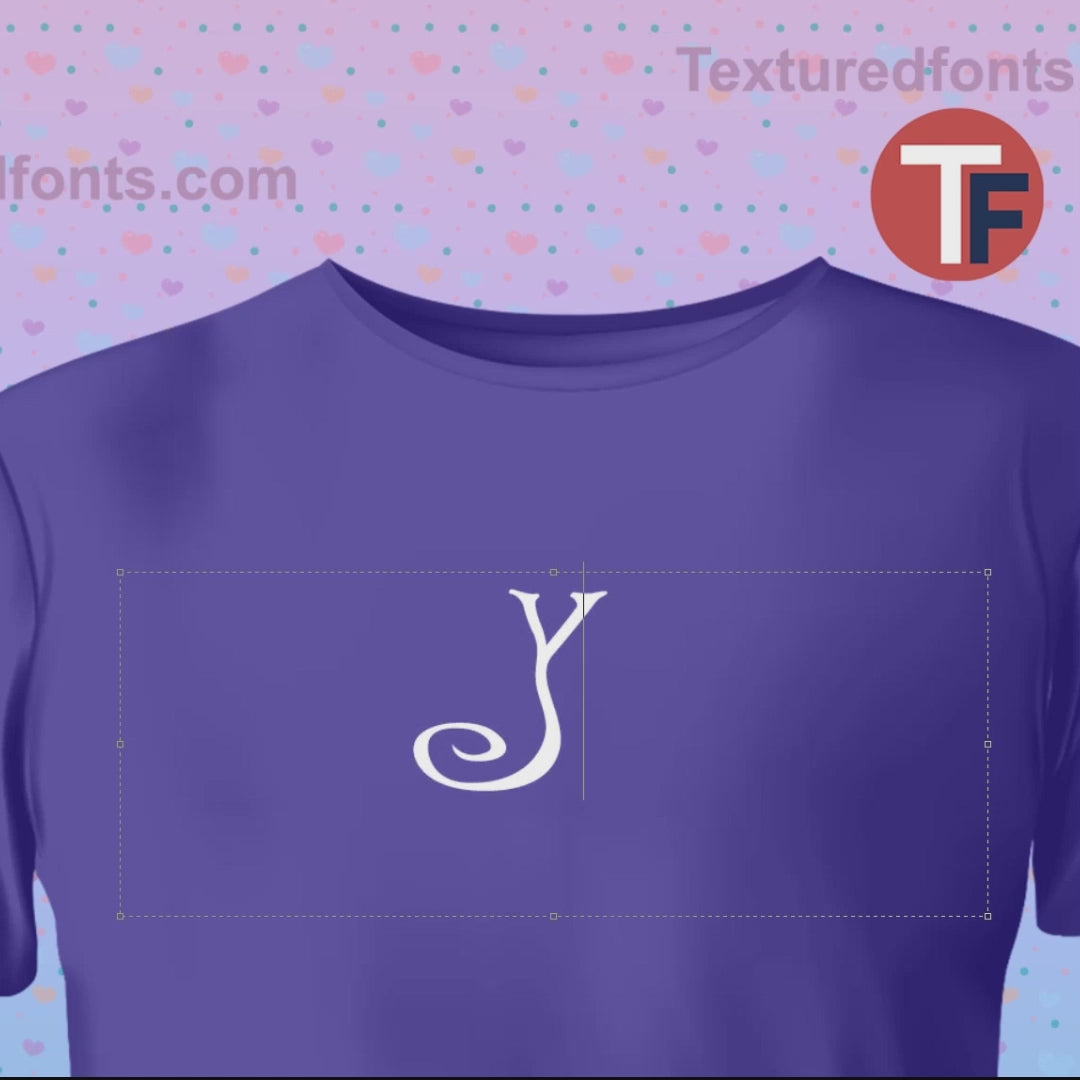
Enchanted Princess Font
Discover Enchantment with the Enchanted Princess Font
Step into a world of enchantment and whimsy with our Enchanted Princess font, perfect for capturing the magical and adventurous spirit of a beloved fairy tale. This font is ideal for fans of Rapunzel-like stories, as well as creators looking to add a touch of fantasy and charm to their projects. Whether you're designing invitations for a themed party, creating engaging content for children, or crafting unique merchandise, our Enchanted Princess font ensures your designs resonate with the wonder and joy of the story.
Our Enchanted Princess font features elegant, flowing lines with playful swirls that mirror the long, winding hair of a fairy tale princess and the organic forms of her enchanted world. It includes a complete set of characters—uppercase, lowercase, numbers, and special symbols—making it versatile for a wide range of uses:
- Themed Events: Create beautiful invitations, decorations, and thank-you cards for parties.
- Children’s Books and Learning Materials: Enhance the visual appeal of educational content with a fairy tale theme.
- Digital Media: Use for captivating titles and content in apps, websites, and social media.
- Merchandise Design: Design appealing apparel, stationery, and accessories for fans of the fairy tale.
- Personal Projects: Add a personal, whimsical touch to scrapbooks, crafts, or home decor.
Our Enchanted Princess font not only pays homage to a beloved fairy tale but also empowers you to weave a bit of magic into every design. With its elegant curves and versatile application, this font lets you tell your own stories of adventure and enchantment, ensuring every word captures the heartwarming essence of the tale. Ready to let your creativity shine as brightly as the enchanted princess's glowing hair? Our font is here to help you light up your projects with charm and style.